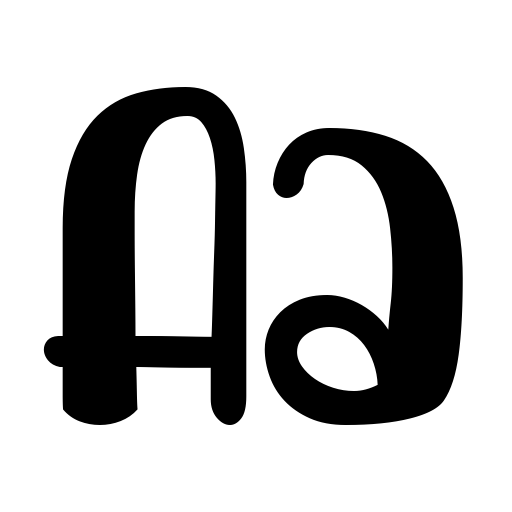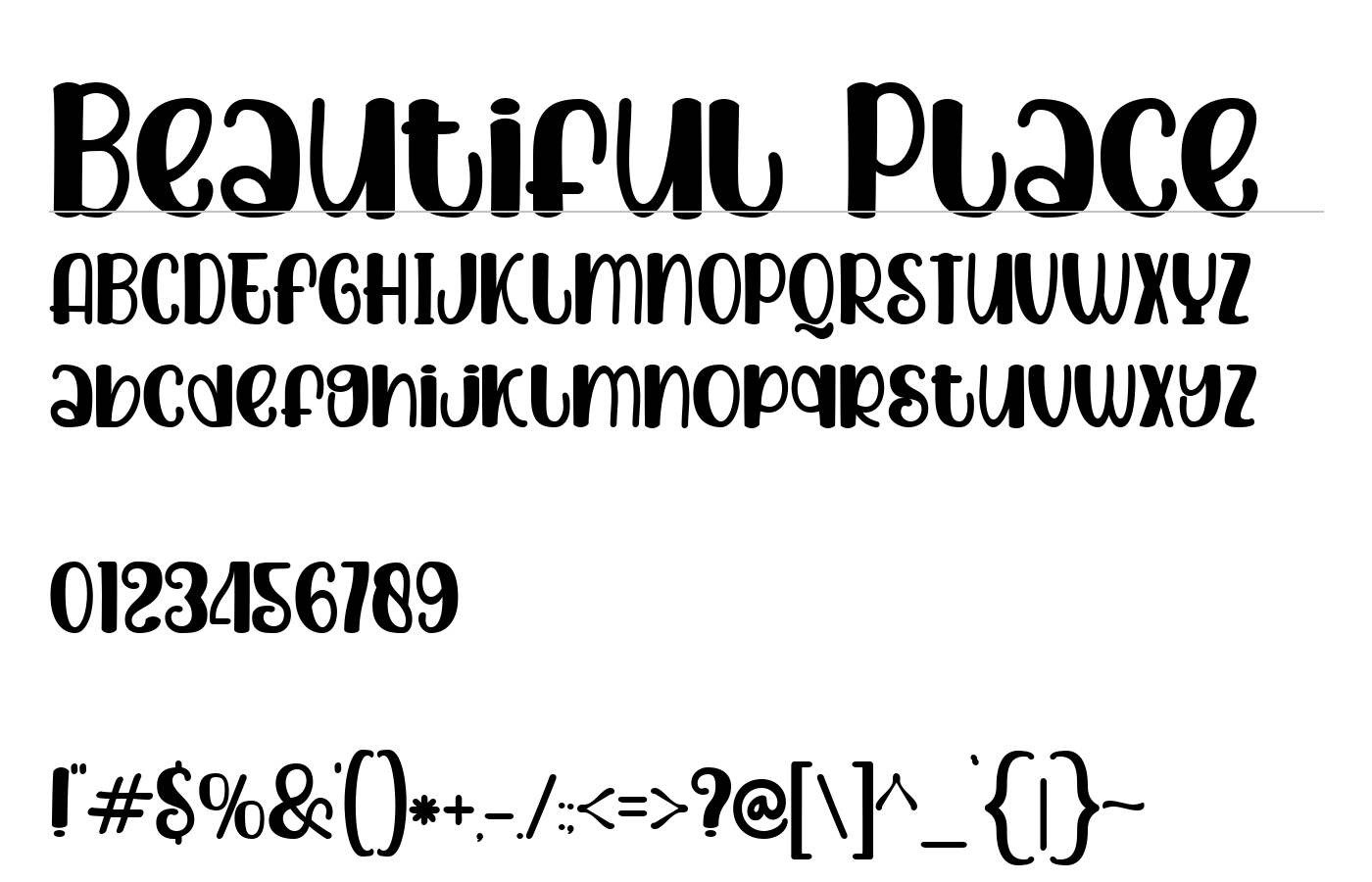
Beautiful Place is a quirky and playful sans serif font with a bold weight and rounded strokes that give it a friendly, approachable feel. Its unique letterforms, such as the curled tails and single-story letters, add character and charm, making it ideal for creative projects, logos, and headlines that want to convey a fun and casual vibe. This font works well in designs aimed at a youthful audience or where a warm, informal tone is desired.
Beautiful Place Font
About Beautiful Place Font